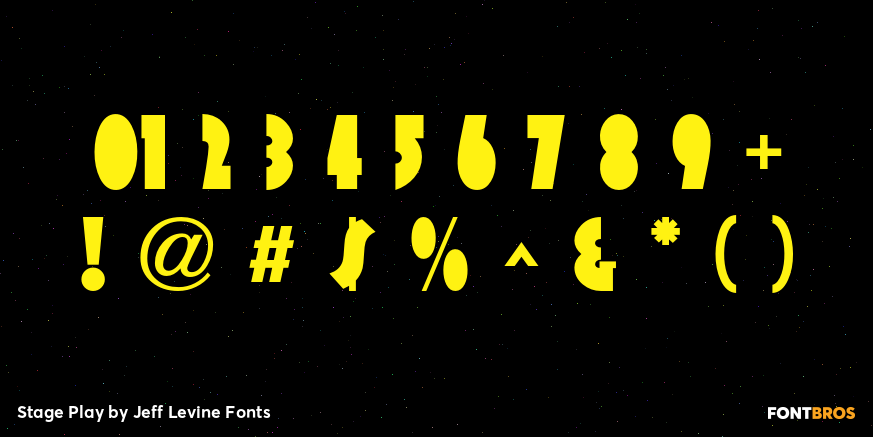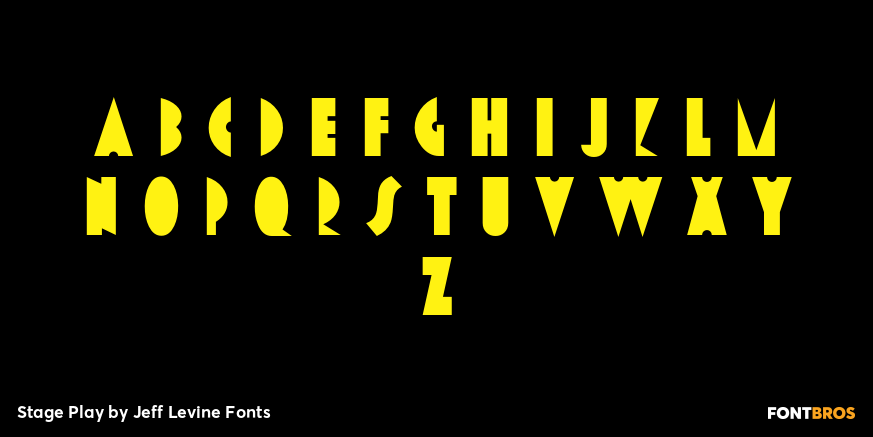
Stage Play
Vintage sheet music for Earl Carroll's dramatic mystery-comedy production 'Murder at the Vanities' has its title hand-lettered in the Art Deco style which served as the basis for Stage Play JNL.
Stage Play JNL Regular by Jeff Levine Fonts